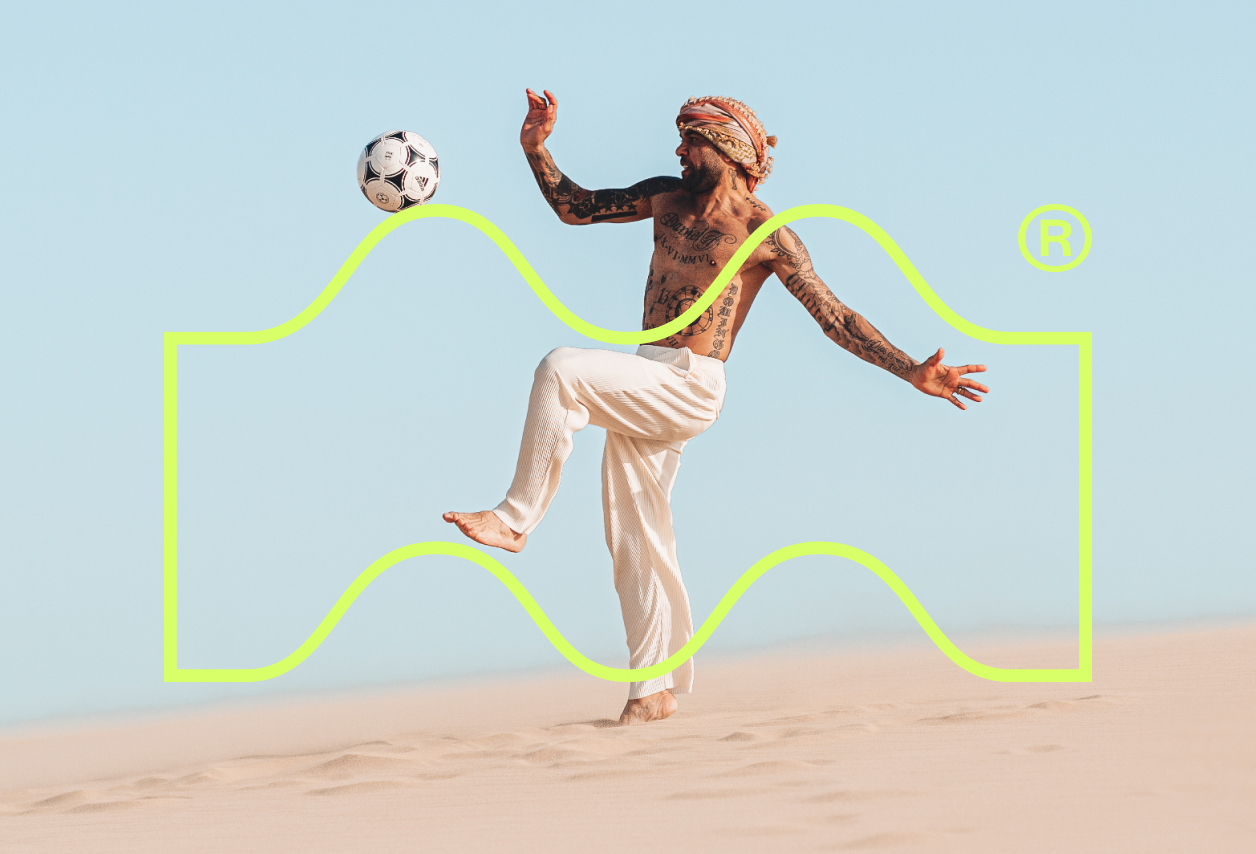
Maracanã Media is an audiovisual producer, led by the athlete Daniel Alves and a team of professionals specialized in sports, which produces authorial and documentary content about high performance athletes.
The starting point for this project was the desire to create an impactful look that would bring prominence to digital and, at the same time, a sporting character with the Brazilian touch.
As a result, we arrived at a visual identity with strong typography to commend with audiovisual work.